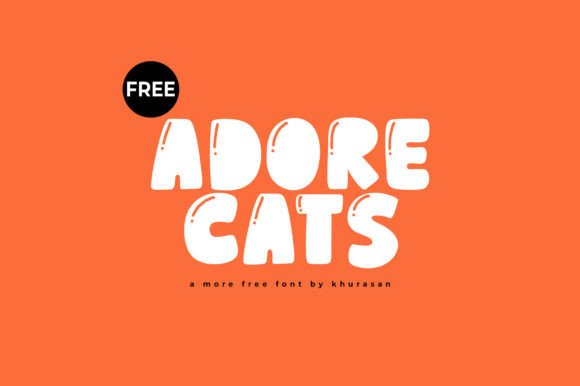
Adore Cats: A Modern Display Font for Playful and Professional Designs
In the crowded landscape of digital and print media, capturing attention often comes down to a single decision: the choice of typography. Designers frequently struggle to find a balance between professionalism and personality. They need a typeface that communicates warmth and approachability without sacrificing readability or aesthetic appeal. This is where Adore Cats emerges as a powerful solution. As a modern and cute display font, it bridges the gap between whimsical charm and functional design, making it an ideal choice for posters, logos, magazines, book covers, banners, and many more creative projects.
The Challenge of Finding the Right Visual Tone
One of the most common hurdles designers face is selecting a font that aligns with the emotional intent of a project. Standard serif and sans-serif fonts are reliable workhorses, but they often lack the unique character required to make a brand or message stand out. Conversely, overly decorative scripts can sometimes compromise legibility or appear too informal for certain contexts. The goal is to find a typeface that feels inviting and "lovely" while maintaining enough structure to be taken seriously.
Many adults seeking practical solutions for their branding or content creation realize that their current designs feel flat or generic. Whether you are launching a new pet care service, designing a children's book, or creating a lifestyle magazine, the visual language must resonate immediately with the audience. If the typography feels stiff, the connection is lost. If it is too chaotic, the message is obscured. Adore Cats addresses this specific tension by offering a style that is inherently friendly yet sufficiently structured for versatile application.
Understanding Adore Cats as a Design Tool
Adore Cats is not merely a collection of letters; it is a mood setter. Characterized by its rounded edges, playful curves, and modern silhouette, this font embodies the spirit of affection and creativity. It is designed specifically to evoke a sense of joy and curiosity, making it perfect for projects where the primary goal is to engage the viewer emotionally. Unlike rigid geometric fonts, Adore Cats brings a human touch to digital screens and printed pages alike.
The versatility of this font lies in its ability to adapt to various scales and contexts. While it shines as a headline font, its clarity ensures that it remains readable even when used for short paragraphs or captions. This makes it an incredibly large set of projects compatible asset. By adding Adore Cats to your creative toolkit, you gain the ability to instantly elevate the perceived value of your work, ensuring that your designs do not just sit on the page but actively invite interaction.
Practical Applications Across Industries
The utility of Adore Cats extends far beyond simple decoration. Its unique characteristics allow it to solve specific design problems across multiple industries. Here is how different users can leverage this font to achieve their goals:
- Branding and Logos: For businesses in the pet industry, wellness sector, or family-oriented services, a logo needs to communicate trust and care. Adore Cats provides the perfect visual shorthand for these values. A logo utilizing this font will immediately signal to customers that the brand is friendly and accessible.
- Publishing and Book Covers: Authors and publishers looking to create eye-catching book covers for children's literature, self-help guides, or lifestyle blogs can use this font to grab attention on crowded shelves or digital storefronts. The playful nature of the typeface suggests a light, enjoyable reading experience.
- Marketing Materials: Posters, banners, and flyers often have only seconds to capture a passerby's interest. Using Adore Cats for headlines creates a focal point that stands out against more traditional text bodies. It breaks the monotony of standard marketing materials and encourages people to stop and read.
- Digital Content: In the realm of social media graphics and website headers, visual hierarchy is key. This font serves as an excellent tool for creating distinct sections that guide the user's eye through content without feeling overwhelming.
Strategic Implementation for Maximum Impact
To get the most out of Adore Cats, it is essential to understand how to pair it with other elements. Because it is a display font with strong personality, it works best when balanced with simpler, neutral typefaces for body copy. Pairing it with a clean sans-serif like Helvetica or Roboto allows the playful elements of Adore Cats to shine without competing for attention.
Color also plays a significant role in how this font is perceived. While it looks charming in soft pastels—pinks, blues, and creams—it also maintains its character when rendered in bold, high-contrast colors like black, navy, or deep green. Designers should experiment with weight and spacing (kerning) to ensure the letters do not feel too crowded, preserving the open and airy feel that defines the font's aesthetic.